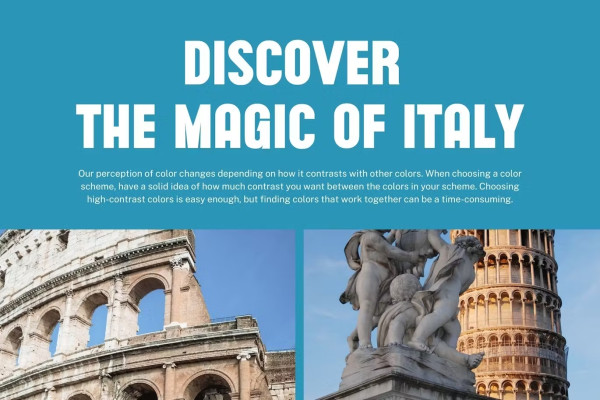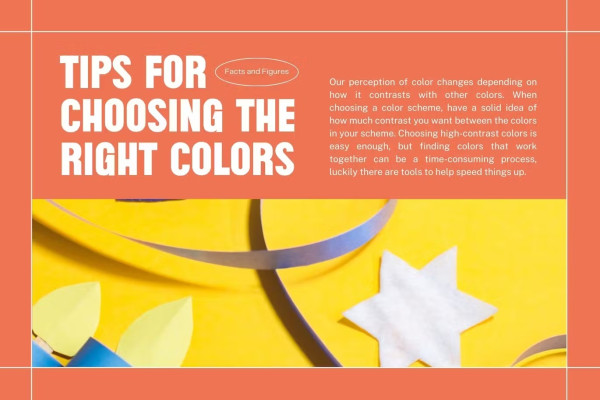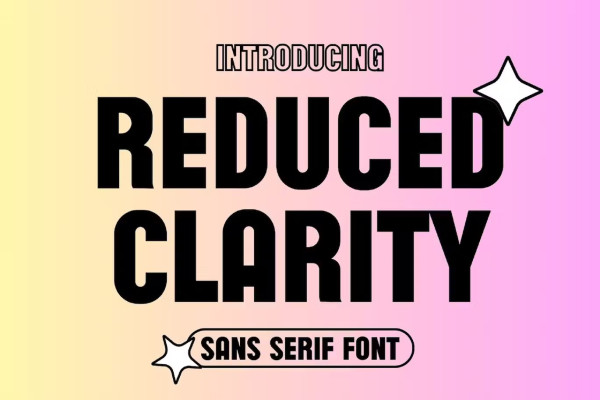
Reduced Clarity Font
Reduced Clarity Font, inspired by the famous minimalist logo perfect for the purposes of designing templates, brochures, videos, advertising branding, logos, invitation, layout design, elegant crafting, beauty design and other